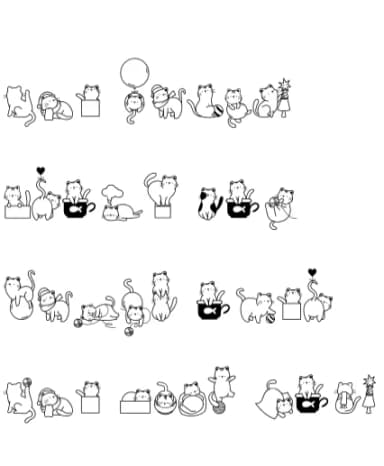
This font brings playful feline charm and character. Cats Lover, designed by Onoborgol, is a dingbats typeface built from cat sketches and silhouettes that add instant personality and visual interest to your creative projects.
You'll find it works beautifully for pet-themed stationery suites, handmade greeting card designs, DIY craft labels for cat-themed gift boxes, custom packaging for boutique cat treats or kitten accessories, and playful social media graphics celebrating feline friends. As a dingbats font, each keystroke loads a different cat character, giving you a full range of expressions and poses to work with throughout your designs. You can mix and match these characters to create your own charming compositions, layering the cats over text or using them as standalone decorative elements. The silhouette approach works across different design layouts and color schemes. Use them with bright, playful tones, muted sophistication, or anything in between.
Cats Lover Font is a versatile dingbats font that works for both headings and body text. Pair it with a contrasting sans-serif or serif font to add visual interest and a clear distinction between titles and body copy.